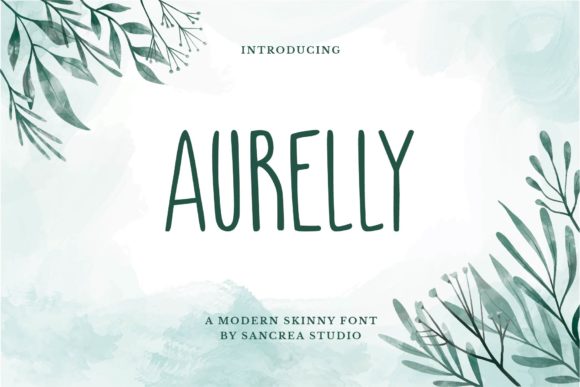
Introducing Aurelly Font
Aurelly is a skinny and modern handwritten font, perfect for any designer, crafter, or creative hobbyist looking to elevate their project. It’s suitable for a wide range of applications, including branding, product packaging, invitations, quotes, t-shirts, labels, posters, and logos.
What I Love About Aurelly Font
- ✨ Modern and Elegant: Aurelly’s sleek design makes it perfect for projects that require a touch of sophistication.
- ✅ Highly Versatile: This font can be used for a wide range of projects, from branding to product packaging.
- 💡 Easy to Read: Despite its skinny design, Aurelly is surprisingly easy to read, even at smaller font sizes.
- 🎨 OpenType Features: Aurelly comes with a range of OpenType features, including glyphs and stylistic alternates, giving you plenty of creative options.
While Aurelly is an excellent font, there are a few things to keep in mind:
- ⚠️ Limited Use in Serif Contexts: Aurelly’s modern, handwritten design may not be the best fit for projects that require a serif font.
- 🤔 Kerning Issues: As with any font, you may need to adjust the kerning to ensure optimal spacing between letters.
The Story Behind Aurelly Font
Aurelly was designed by a team of typographers who wanted to create a font that was both modern and elegant. Inspired by the beauty of handwritten script, they crafted Aurelly to be a versatile font that could be used in a wide range of projects. From the start, Aurelly was designed to be a font that would make designers’ lives easier, providing a touch of sophistication and elegance to any project.
Q: What is Aurelly Font?
Aurelly Font is a modern, handwritten font designed for use in a wide range of projects, from branding to product packaging.
Q: Does Aurelly Font come with OpenType features?
Yes, Aurelly Font comes with a range of OpenType features, including glyphs and stylistic alternates.